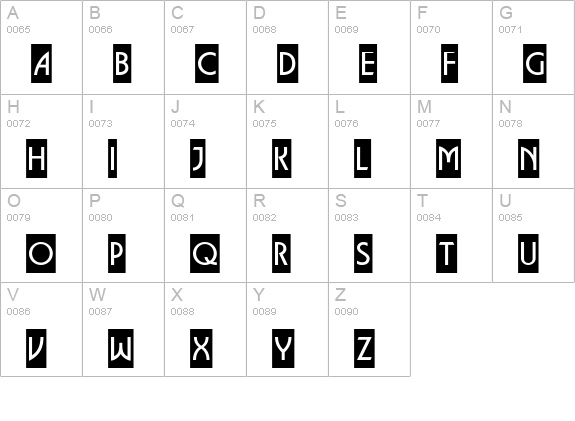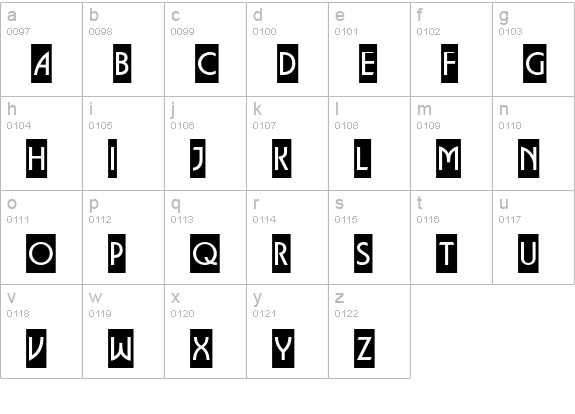
Introducing LancetCm font, a stylish and modern typeface designed to make your text stand out with its elegant and sophisticated look. LancetCm is perfect for a wide range of design projects, from branding to editorial design, thanks to its clean lines and sleek appearance. This versatile font is ideal for creating eye-catching headlines, elegant logos, and stunning invitations. But the best part? LancetCm is free to download at FontsMarket.com, making it accessible to all designers looking to add a touch of class to their projects without breaking the bank. Don't miss out on the opportunity to elevate your designs with this stunning font that combines modernity with timeless elegance. Download LancetCm today and see the difference it can make in your creative endeavors.